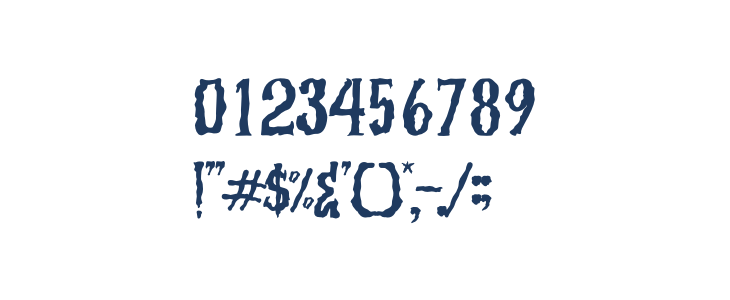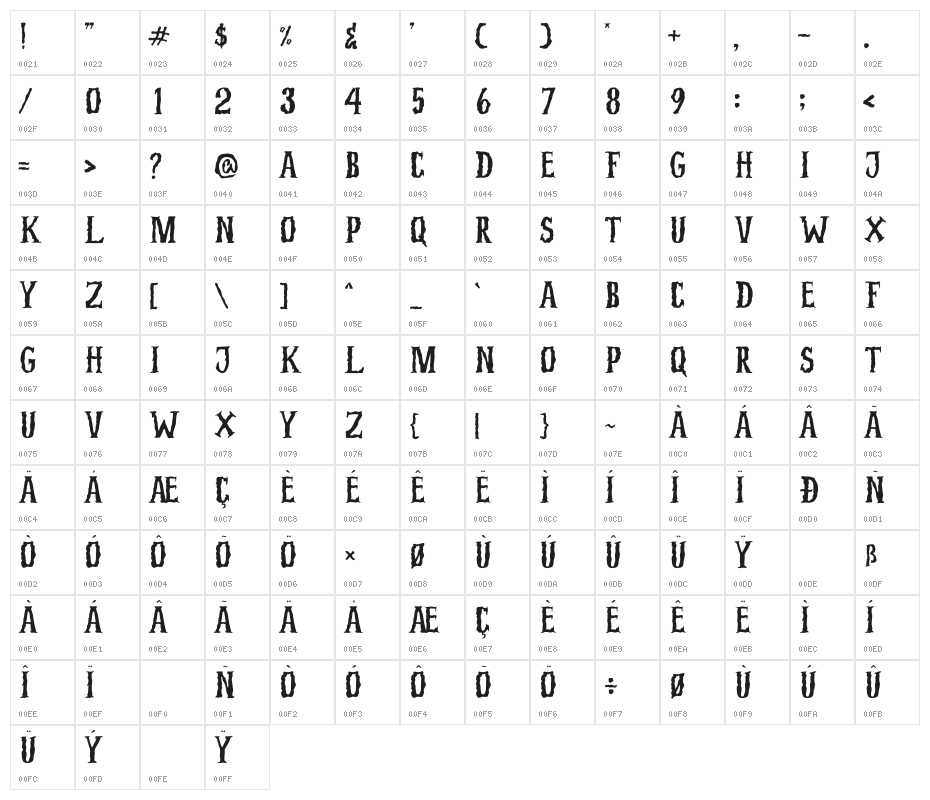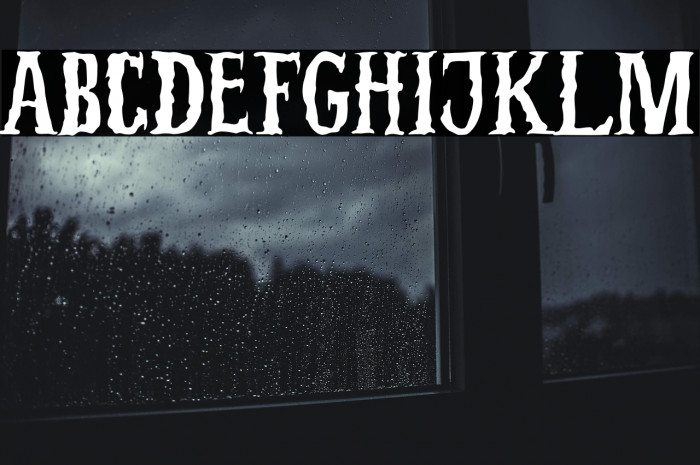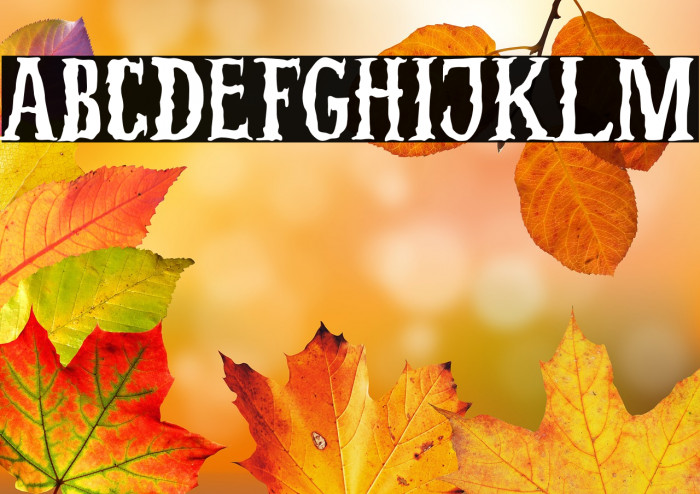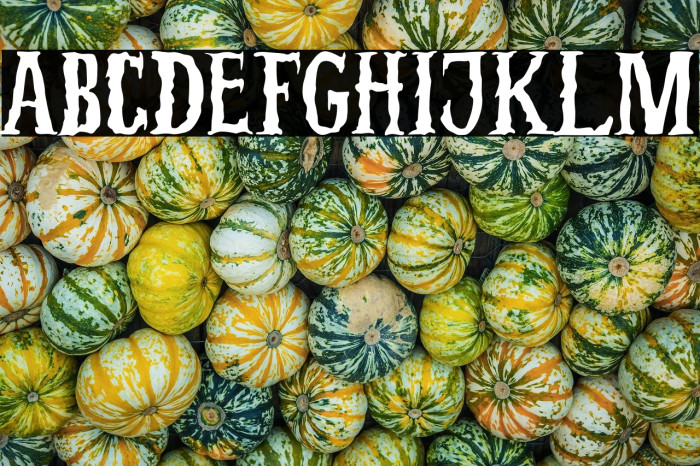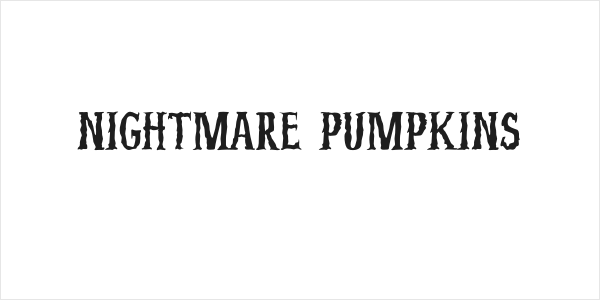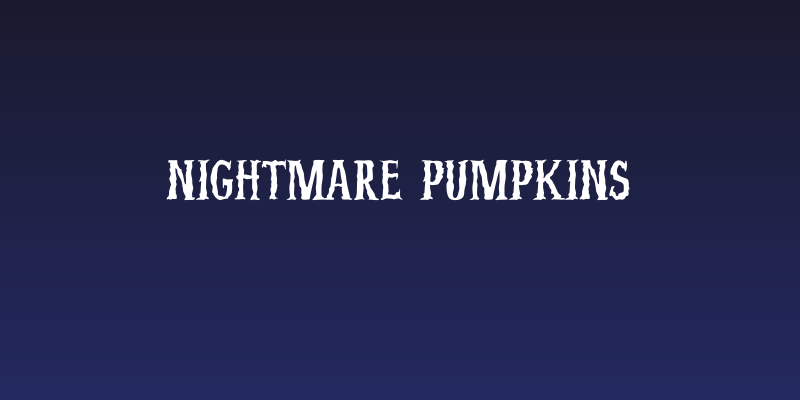
Nightmare Pumpkins Font
Nightmare Pumpkins Description
This font features a spooky, jagged design reminiscent of carved pumpkins or eerie shadows. The letters have an irregular, distressed appearance with sharp edges and uneven strokes, creating a sense of horror and mystery. The uppercase and lowercase letters maintain this unsettling style, while the numbers and special characters follow suit with a similarly haunting aesthetic. This font is perfect for Halloween-themed projects or any design that requires a touch of the macabre.
| Proposed Projects | Ideal for Halloween invitations, horror movie posters, themed party decorations, and spooky merchandise designs. |